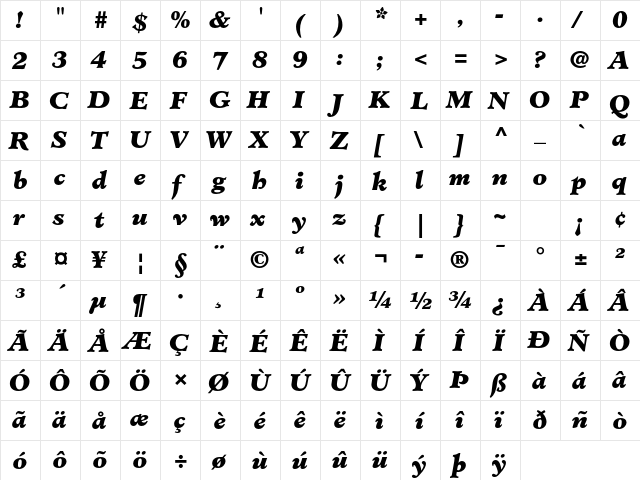
Minister Std Black Italic
Black Italic ·  M. Fahrenwaldt ·
DesignerM. Fahrenwaldt
Design Context for Minister Std Typeface
Minister Std is a composed and adaptable typeface that performs quietly and consistently across a wide range of design contexts. Its italic angle brings a sense of urgency and motion to the letterforms.
Pro Tip: Use Minister Std for emphasis, pull quotes, and subheadings where its slanted energy can add rhythm to the layout.